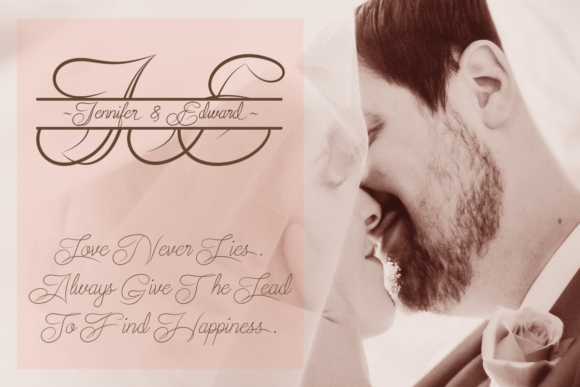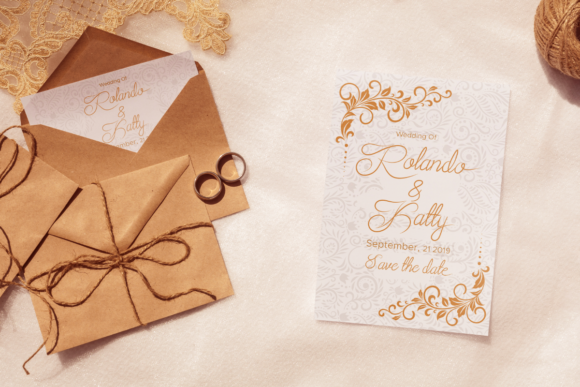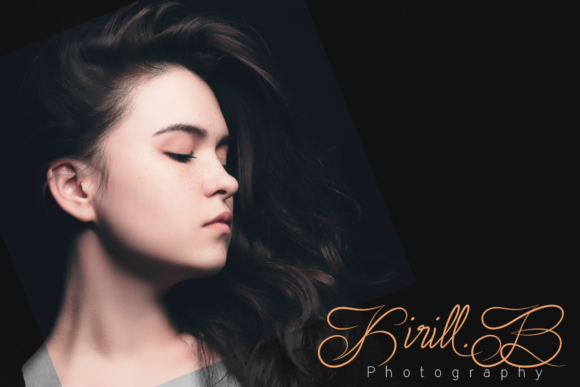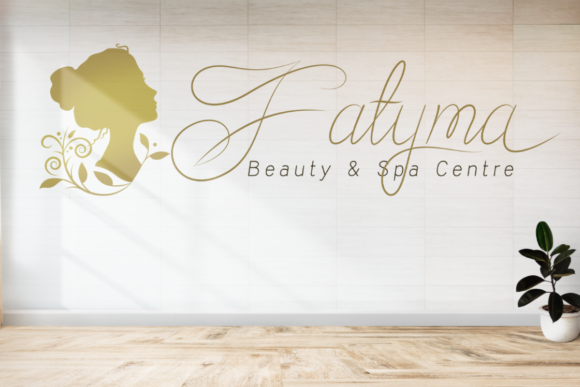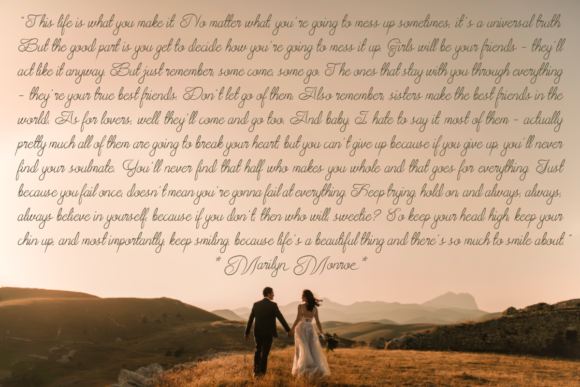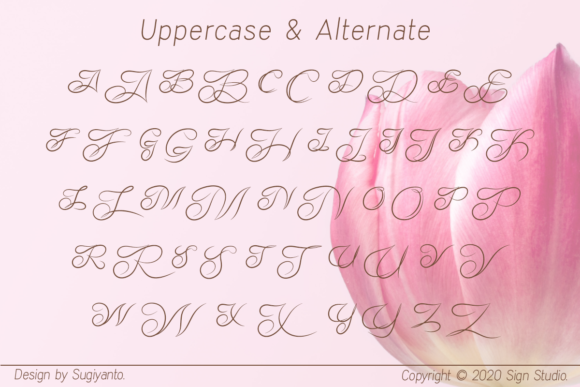
Introducing Adelyne Font: Elevate Your Design with Classic Elegance and Modern Flair
In the world of typography, few fonts manage to strike a balance between classic inspiration and unique style. Adelyne Font is one such exceptional find, bringing a touch of sophistication and elegance to any design project. This fantastic handwritten font is not only a versatile tool for designers and crafters but also an asset that can elevate your visual creations to new heights.
The Inspiration Behind Adelyne
Adelyne draws its inspiration from the timeless beauty of classic typography. It pays homage to the traditional fonts that have been the backbone of design for centuries, yet it infuses them with a modern twist. This blend of old and new results in a font that is both nostalgic and fresh, capable of resonating with a wide audience.
Key Features of Adelyne Font
• Versatility: Adelyne is incredibly versatile, making it suitable for a variety of design projects. Whether you’re working on a website, a print magazine, a movie title sequence, or any other visual content, Adelyne adapts seamlessly.
• Handwritten Elegance: As a handwritten font, Adelyne brings a personal and intimate feel to your designs. Its strokes are fluid and natural, adding a human touch that digital fonts often lack.
• Scalability: One of the standout features of Adelyne is its scalability. It looks stunning in headlines of all sizes and is equally impressive in blocks of text, whether they are large or small. This makes it an excellent choice for projects that require a high level of detail and readability.
• Variations: Adelyne supports both maximum and minimum variations in text, allowing designers to play with different styles and sizes without compromising on consistency or aesthetic appeal.
Adelyne in Design Projects
Adelyne’s adaptability makes it an invaluable asset for designers working on a wide range of projects. Here are a few ways you can incorporate Adelyne into your work:
• Web Design: Use Adelyne to create compelling headlines, engaging content, and responsive text that looks great on all devices.
• Print Design: From brochures and magazines to posters and flyers, Adelyne adds a touch of elegance and sophistication to any print material.
• Motion Graphics: Adelyne’s unique style shines in movie titles, video intros, and other motion graphics, adding a memorable touch to your visual storytelling.
• Crafting and DIY Projects: For crafters and DIY enthusiasts, Adelyne can be used in a variety of creative projects, from handmade cards and invitations to personalized gifts and decorations.
Tips for Using Adelyne Effectively
To make the most of Adelyne Font, consider the following tips:
• Mix and Match: Don’t be afraid to experiment with different sizes and styles of Adelyne. Mixing large headlines with smaller body text can create visually appealing contrasts.
• Pair with Other Fonts: Adelyne works well with a variety of other fonts. Try pairing it with sans-serif fonts for a modern look or with other script fonts for a more traditional feel.
• Consider Your Audience: Keep in mind the audience and purpose of your design. Adelyne’s elegant style makes it suitable for formal events, luxury brands, and creative projects.
Adelyne Font is a remarkable addition to any designer’s toolkit. Its unique blend of classic inspiration and modern style, combined with its versatility and elegance, makes it an ideal choice for a wide range of projects. Whether you’re a professional designer or a crafting enthusiast, Adelyne invites you to explore new creative possibilities and bring a touch of sophistication to your work. With Adelyne, you can ensure that your designs not only look spectacular but also leave a lasting impression on your audience.